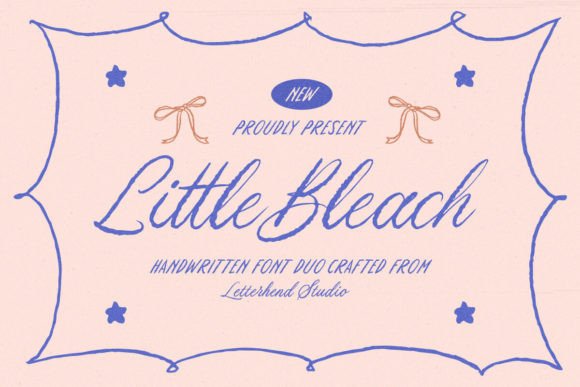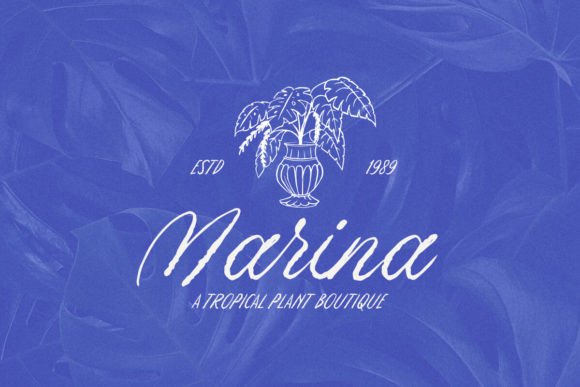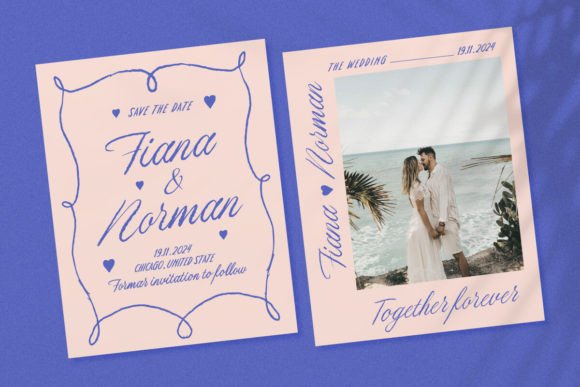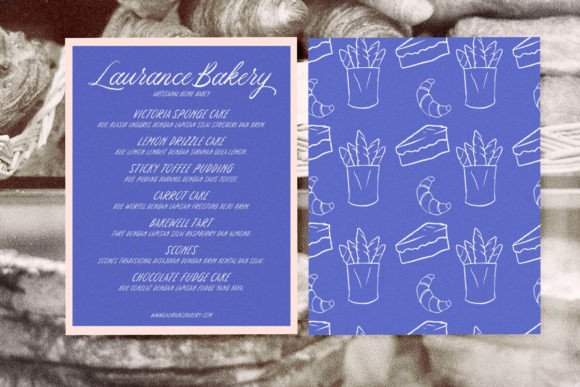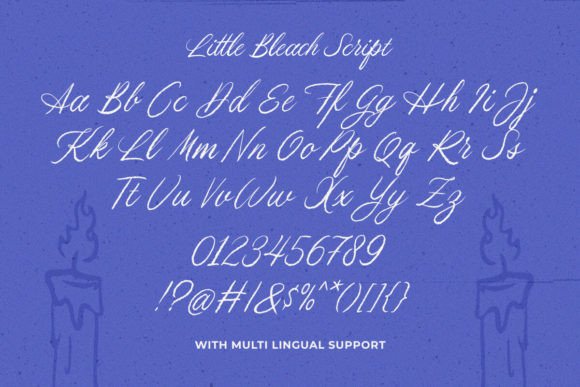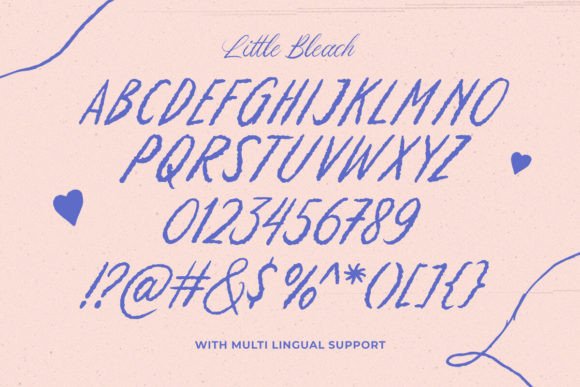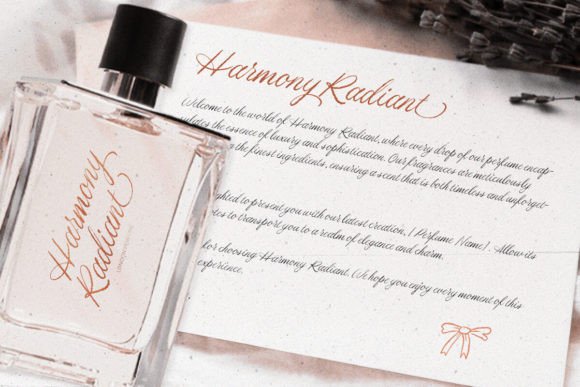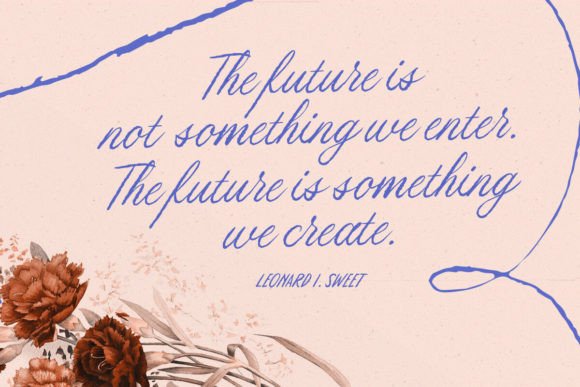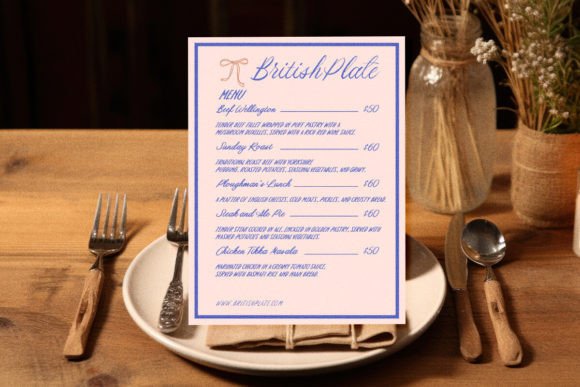
Little Bleach Font
Meet Little Bleach, a crafted font duo that combines two styles: an textured script and a organic san handwriting. These fonts work beautifully together, making them ideal for a range of uses like logos, invitations, labels, magazines, books, and greeting cards. They’re also great for packaging, fashion, makeup, stationery, and all kinds of advertising!